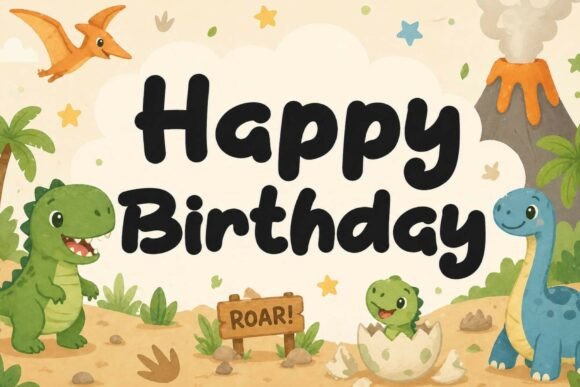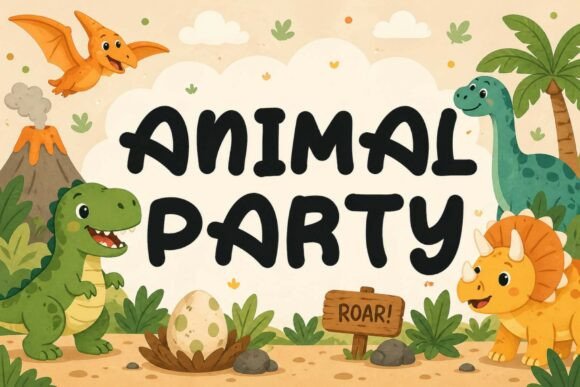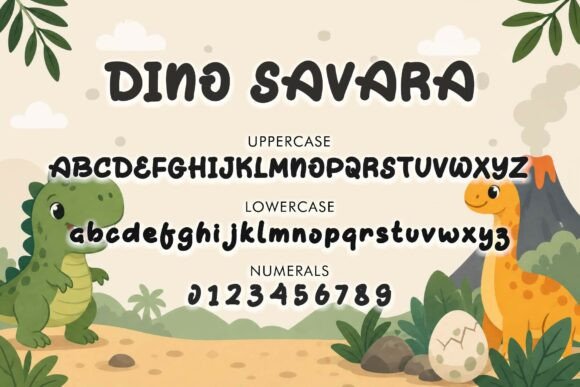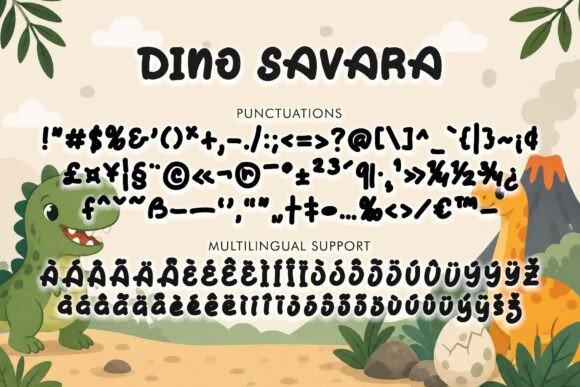
Dino Savara Font: The Perfect Choice for Creative Designs
Are you a designer or crafter looking for a unique and playful font to add some excitement to your projects? Look no further than the Dino Savara font! This adorable display font is perfect for a wide range of creative applications, from birthday cards and animations to logos and posters.
What Makes Dino Savara Font So Special?
Dino Savara is a cute and unique display font that features uppercase and lowercase letters, numbers, punctuation, and multilingual support. Its playful and whimsical design makes it perfect for projects that require a fun and youthful touch. Whether you’re creating a birthday card, a cartoon, or a comic, this font is sure to bring a smile to your audience’s faces.
Key Features of Dino Savara Font
• Uppercase and lowercase letters
• Numbers and punctuation
• Multilingual support
• Playful and whimsical design
• Perfect for a wide range of creative applications
Use Cases for Dino Savara Font
Dino Savara font is versatile and can be used for a variety of creative projects, including:
• Birthdays: Create fun and playful birthday cards, invitations, and decorations with Dino Savara font.
• Animations and cartoons: Add a touch of whimsy to your animations and cartoons with this adorable font.
• Comics: Use Dino Savara font to create engaging and fun comics that will delight your readers.
• Summer and holidays: Perfect for creating summer-themed projects, holiday cards, and vacation-themed designs.
• Logos and branding: Use Dino Savara font to create unique and playful logos and branding materials.
• Stickers and posters: Create eye-catching stickers and posters with this fun and playful font.
• Prints and greetings: Use Dino Savara font to create beautiful prints and greetings for special occasions.
Why Designers and Crafters Love Dino Savara Font
Designers and crafters love Dino Savara font for its unique and playful design. It’s perfect for adding a touch of whimsy to their projects and making them stand out. The font is also easy to read and understand, making it perfect for a wide range of applications.
Tips for Using Dino Savara Font
• Use it for headlines and titles: Dino Savara font is perfect for headlines and titles, where you want to grab the attention of your audience.
• Pair it with other fonts: Experiment with pairing Dino Savara font with other fonts to create a unique and interesting design.
• Use it for kids’ projects: Dino Savara font is perfect for projects aimed at kids, such as children’s books, nursery rhymes, and kids’ party decorations.
Dino Savara font is a unique and playful display font that’s perfect for a wide range of creative applications. Its cute and whimsical design makes it perfect for adding a touch of fun and excitement to your projects. Whether you’re a designer or crafter, this font is sure to become a favorite in your collection.